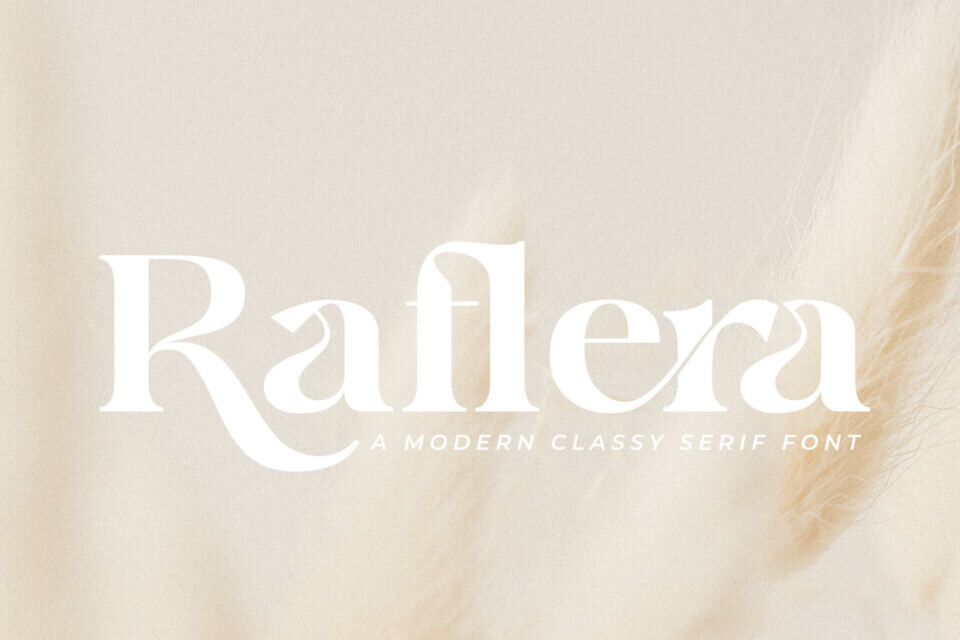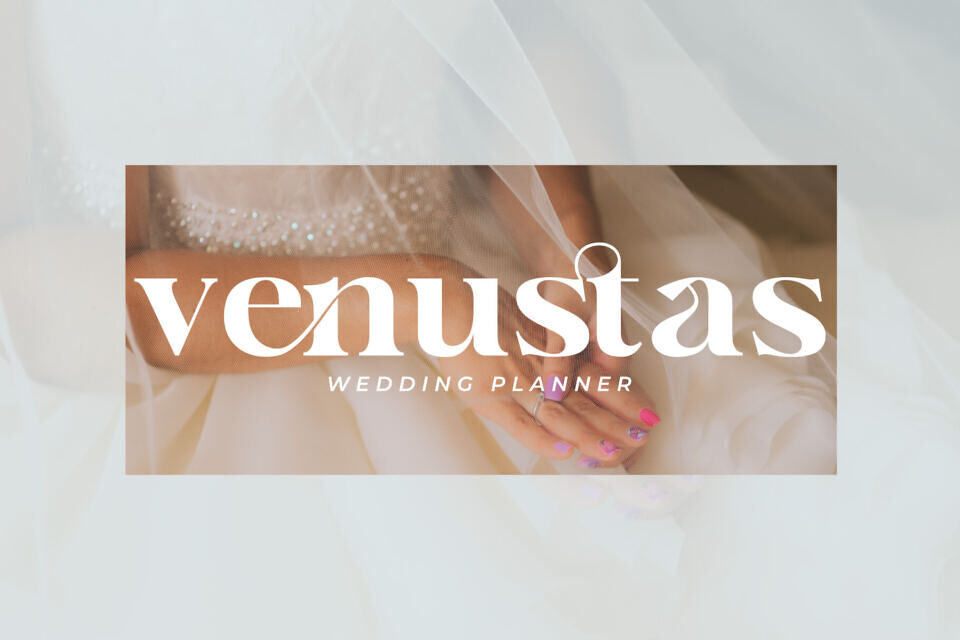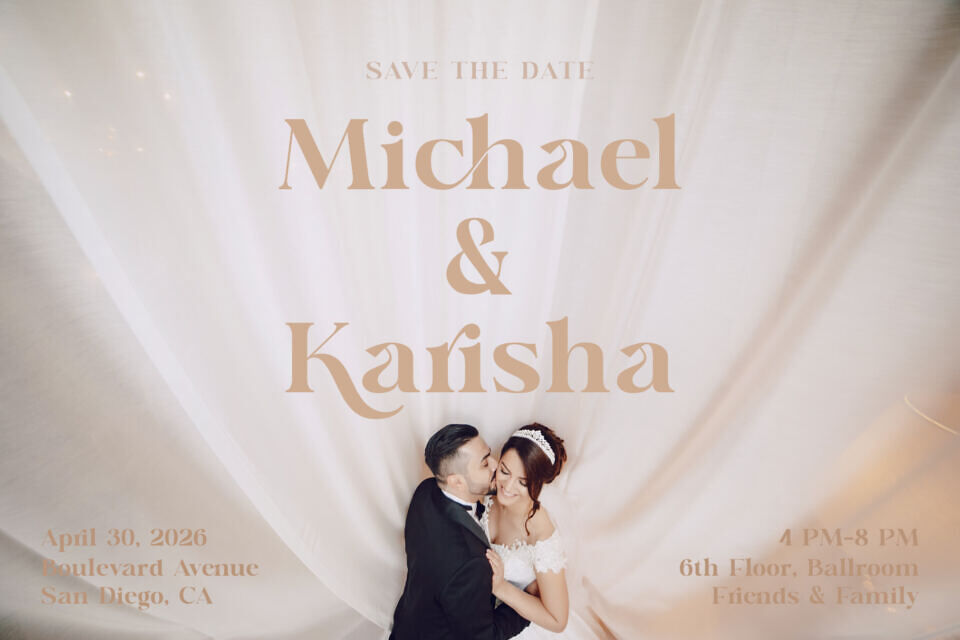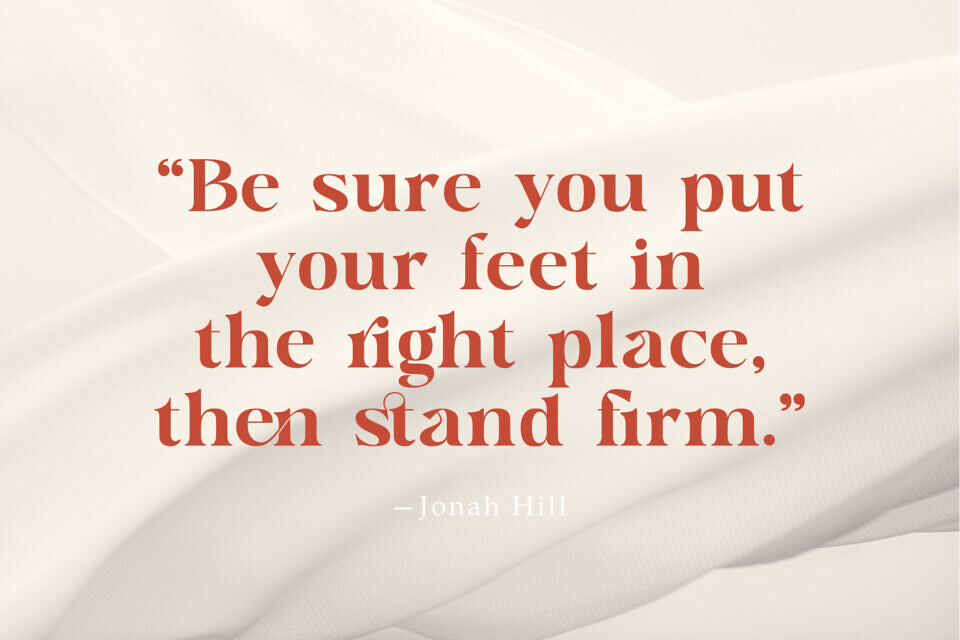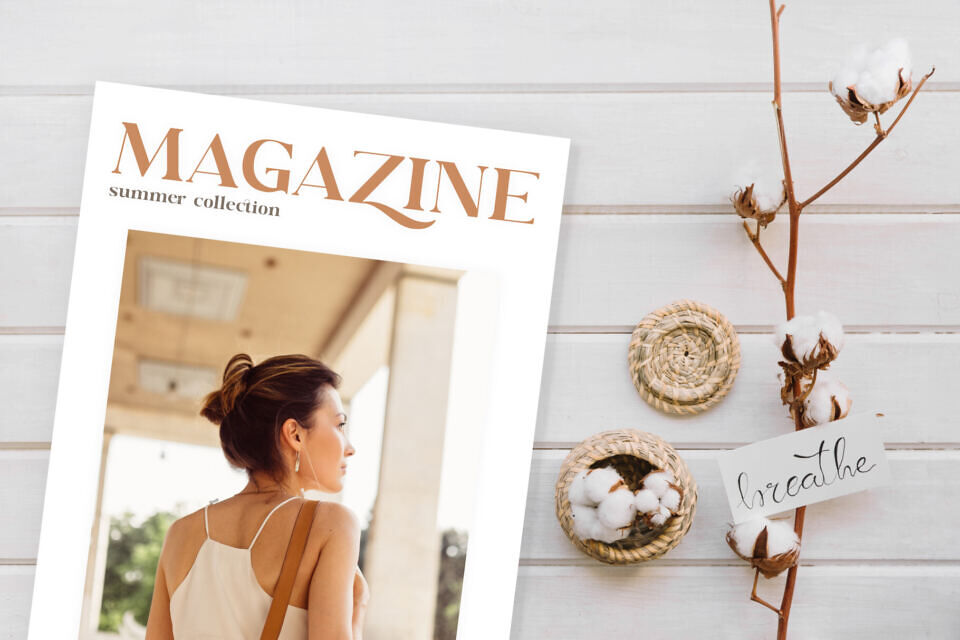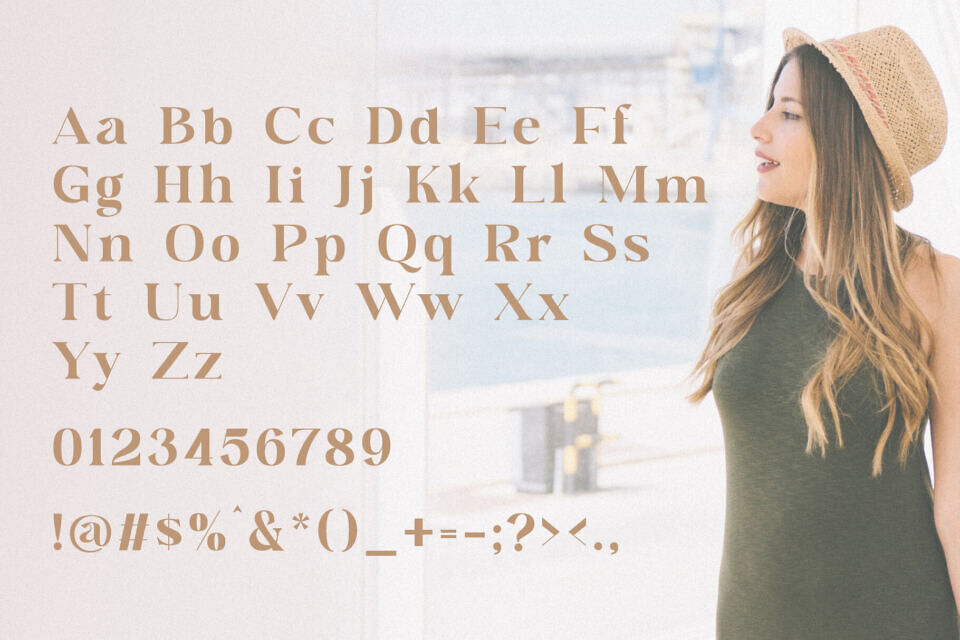
Raflera Font
Raflera is a font that effortlessly blends modern elegance with timeless sophistication. Its sleek, high-contrast glyphs make it a versatile choice for various design contexts, from formal invitations to casual branding.
Raflera’s refined serifs and graceful curves evoke a sense of contemporary sophistication. Whether you’re designing a chic design or an upscale logo, Raflera adds a touch of class.